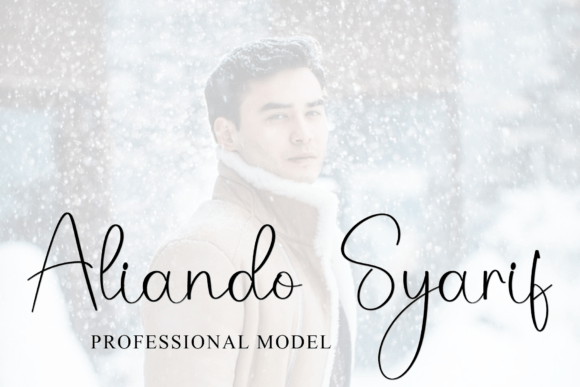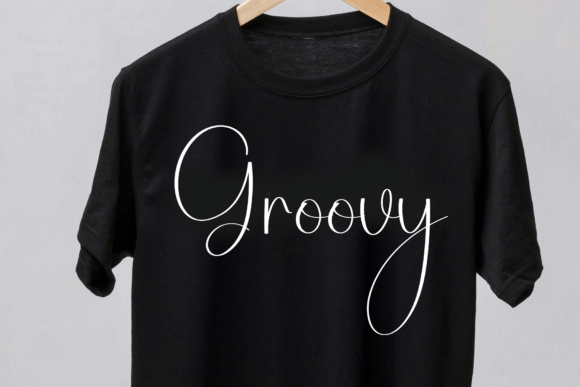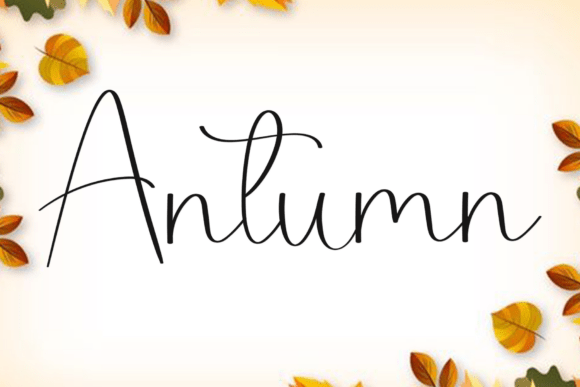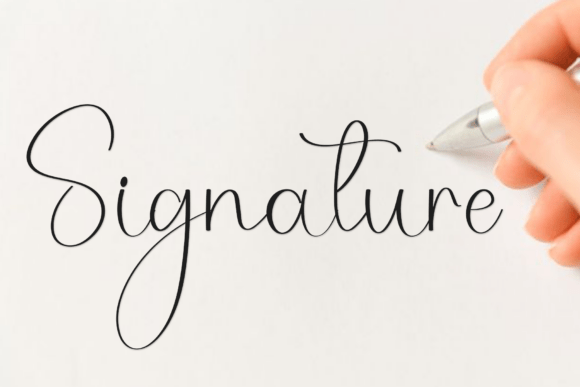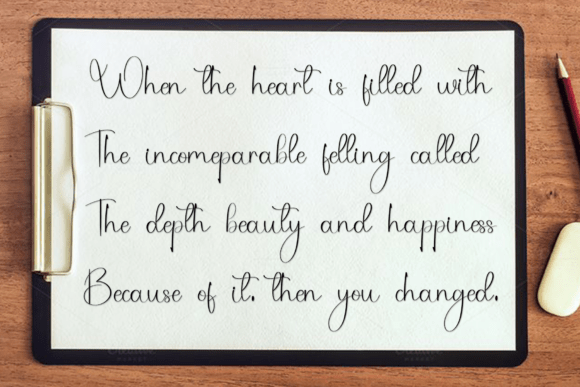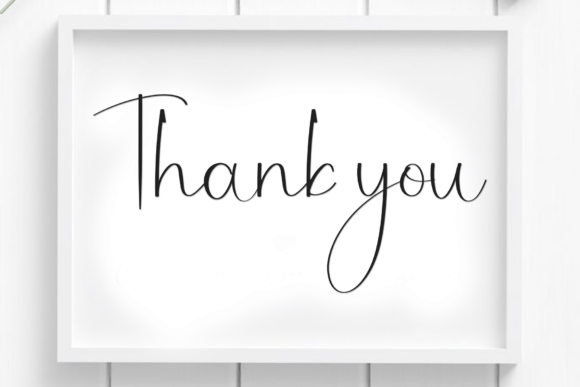
The Perfect Brushstroke: Unlocking the Magic of Dellinda Font
Have you ever stared at a blank canvas, searching for the perfect brushstroke to bring your design to life? The thrill of creation is a feeling many designers know all too well. For those moments when the ordinary just won’t do, there’s a font that’s been waiting to set your imagination free – Dellinda Font.
This lovely, handwritten font is more than just a pretty face. Its unique character and beautiful touch make it the perfect choice for creating eye-catching logos, branding, and quotes that truly stand out. Whether you’re a seasoned designer or just starting out, Dellinda Font is an invaluable tool that will help you breathe life into your designs.
Dellinda Font Key Features
- Unique Characteristics: Hand-drawn, elegant, and sophisticated design with subtle texture and flair, making it ideal for branding, advertising, and editorial content.
Dellinda Font Review
I recently had the chance to work with the Dellinda Font, and I have to say it’s a mixed bag. Here are my honest thoughts.
- Beautiful script font with a elegant, handwritten feel
- Wide range of weights and styles to choose from, making it versatile for various design projects
- Well-suited for titles, headings, and quotes, where a touch of sophistication is needed
- Not ideal for body text, as it can be quite difficult to read in smaller font sizes
- Some letterforms may not be perfectly connected, which can look a bit sloppy at times
- Not as customizable as some other fonts, which can limit its use in specific design contexts
Overall, the Dellinda Font is a lovely addition to any designer’s toolkit, but it’s best used in moderation and with careful consideration of its limitations. When used correctly, it can add a touch of elegance and sophistication to a design. However, when overused or misused, it can quickly become overwhelming and difficult to read. With some finesse and attention to detail, the Dellinda Font can be a valuable asset in a designer’s arsenal.
Dellinda Font is ideal for:
- Brand logos and marketing materials
- Editorial and publishing projects
Getting the Most Out of Dellinda Font
For the best results, use Dellinda Font in combination with bold and italic styles to add emphasis and depth to your design. Experiment with different font sizes and colors to create visual interest and hierarchy.
Alternatives to Dellinda Font for Designers
Playfair Display is an elegant, high-end serif font ideal for luxury brands and high-end publications. It features intricate details and a classic feel, making it perfect for creating a sophisticated and refined atmosphere. When to use: Luxury brands, high-end publications, and elegant invitations.
Playfair Display compares to Dellinda Font in its luxurious feel, but Dellinda Font is more versatile and easier to read at smaller font sizes. Playfair Display is best suited for headlines and titles.
Great Vibes is a beautiful, handwritten script font that adds a touch of personality to any design. It’s perfect for creating a friendly and approachable atmosphere, making it ideal for social media, branding, and advertising. When to use: Social media, branding, advertising, and friendly invitations.
Great Vibes compares to Dellinda Font in its playful and casual feel, but Dellinda Font is more formal and elegant. Great Vibes is best suited for body text and social media posts.
Pacifico is a beautiful, modern script font that exudes a sense of relaxation and tranquility. It’s perfect for creating a calming atmosphere, making it ideal for wellness, travel, and food branding. When to use: Wellness, travel, food branding, and relaxing invitations.
Pacifico compares to Dellinda Font in its elegant and refined feel, but Dellinda Font is more versatile and easier to read at smaller font sizes. Pacifico is best suited for headlines and titles.